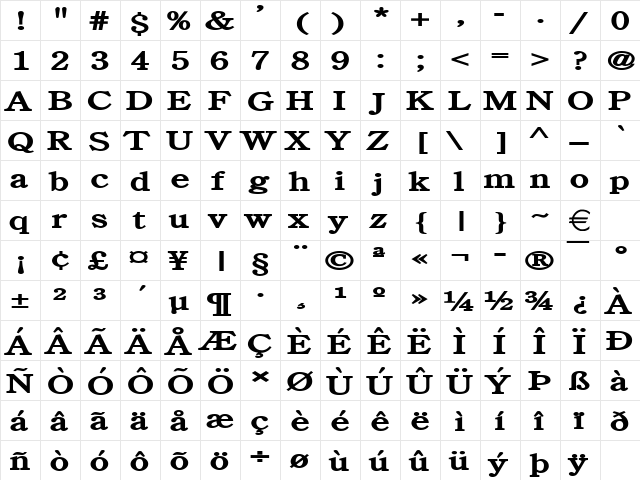
CentimeExtended Bold
Design Context for CentimeExtended Typeface
CentimeExtended takes a measured approach to typography — its balanced proportions and neutral character make it a reliable workhorse for both digital and print work. The heavy weight commands attention and anchors typographic hierarchies.